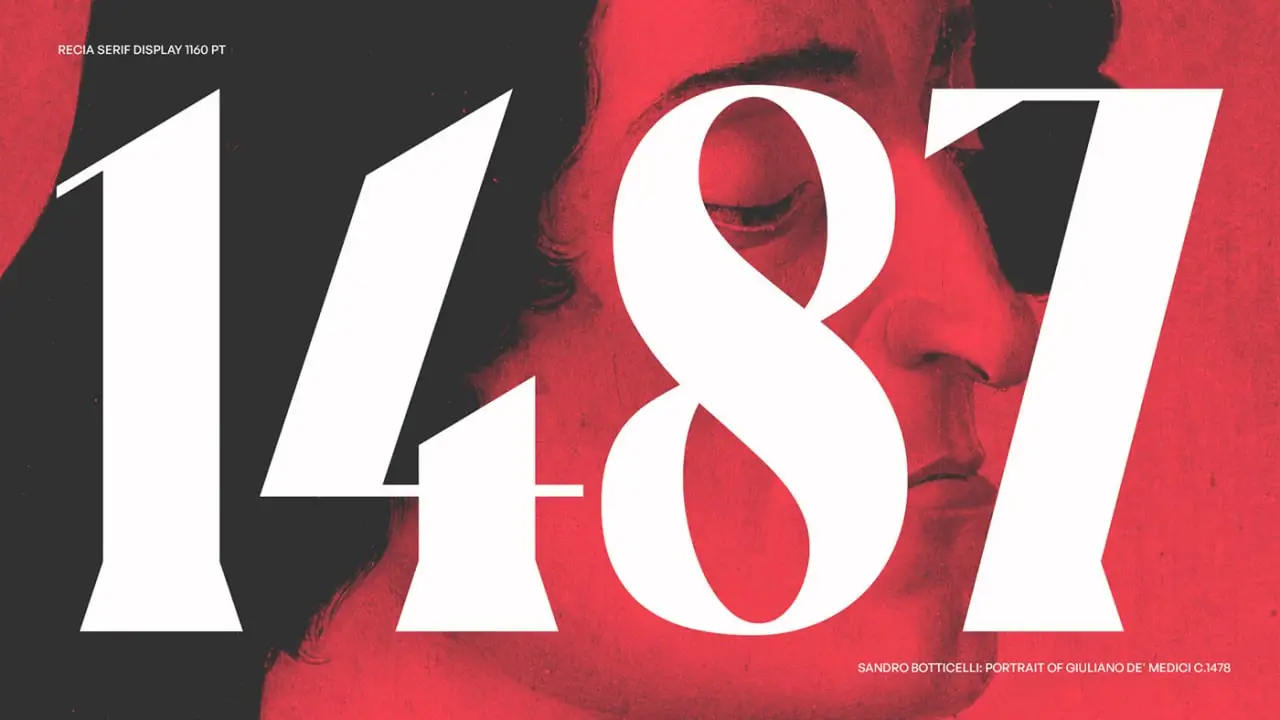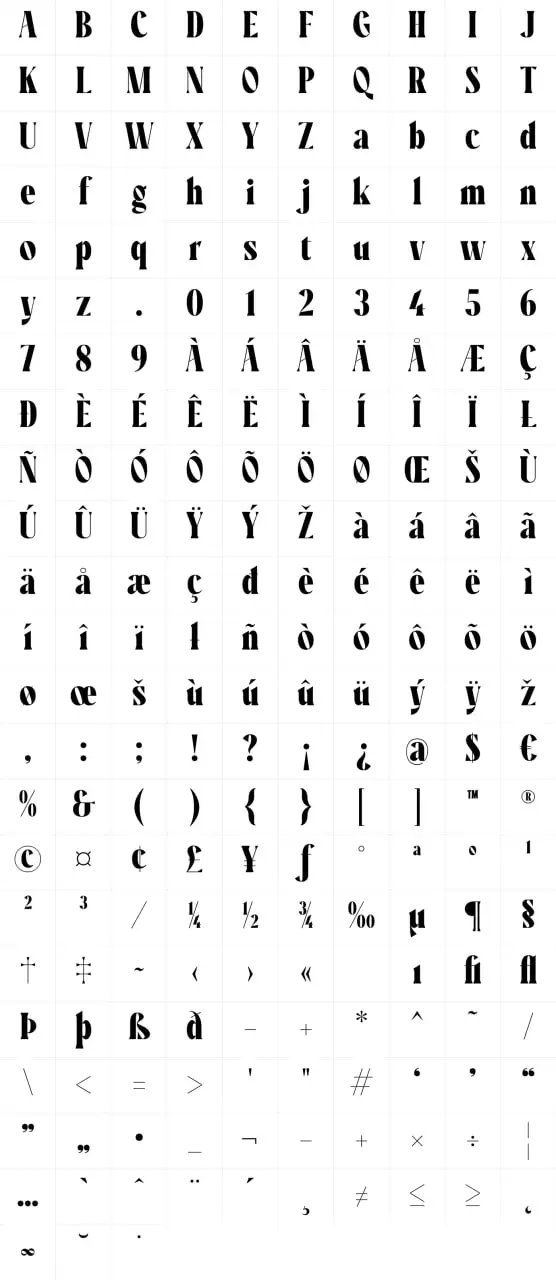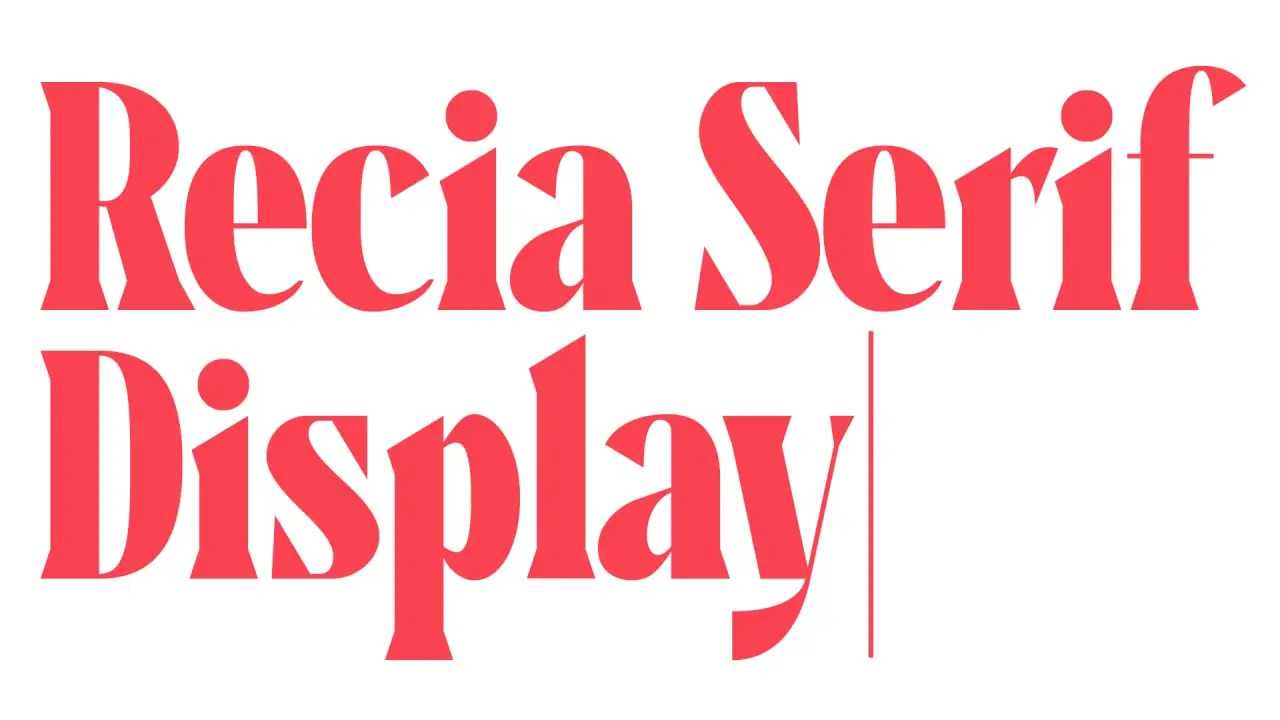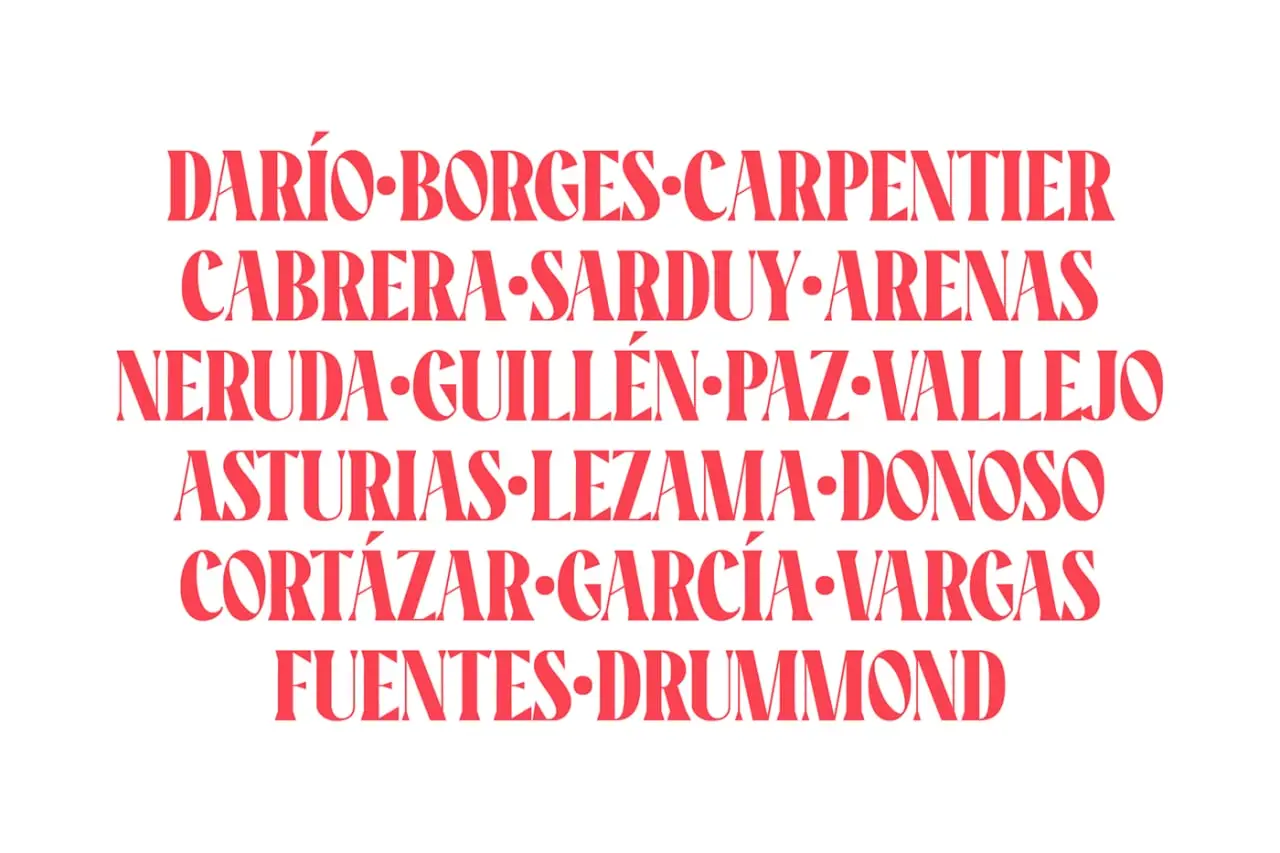
Recia Serif Display-Free Font
The Recia Serif Display-Free Font is a beautifully crafted typeface designed for a variety of creative projects. With its elegant serif style, this font adds a touch of sophistication to your designs, making it ideal for branding, logos, and print materials.
• Perfect for headlines and titles that need to stand out.
• Use in print projects like brochures and business cards for a professional look.
• Great for web use, ensuring readability and style across devices.